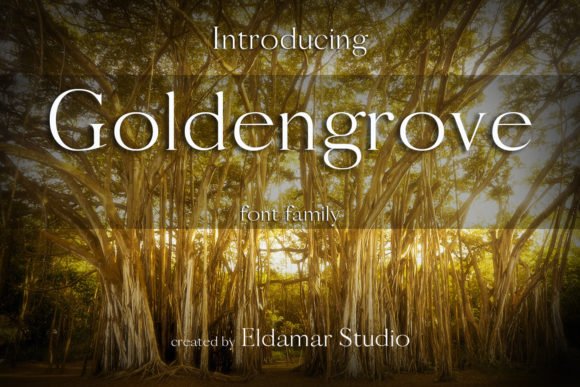
The Perfect Serif for Your Creative Masterpiece
Have you ever stared at a blank canvas, a blank page, or a blank screen, waiting for inspiration to strike? That’s where the magic happens, and the right font can make all the difference. For designers, finding the perfect font can be a game-changer. It’s like discovering a hidden gem that elevates your project from good to great.
Enter the Goldengrove Font, a sleek and sophisticated serif font that’s perfect for a wide range of projects. With its clean lines and delicate feel, it’s an excellent choice for designers who want to create a lasting impression. Whether you’re working on a book cover, a website, or a marketing campaign, the Goldengrove Font is sure to add a touch of elegance and sophistication.
Goldengrove Font Key Features
- Font Family: Goldengrove Font is a serif font family designed by Robert Slimbach and released by Adobe.
- Unique Characteristics: Features a classic, elegant design with subtle nuances and subtle texture, making it suitable for high-end publications and luxury branding.
- Font Styles: Includes 12 font styles, ranging from light to bold, with corresponding italic styles.
Designer Review: Goldengrove Font
Goldengrove Font is a unique and elegant typeface that has caught my attention. I appreciate its quirky and whimsical feel ✨, which sets it apart from more traditional fonts. The subtle flourishes and curved lines add a touch of sophistication and refinement to any text.
One of the standout features of Goldengrove is its excellent legibility ✨, even at smaller font sizes. This makes it perfect for body text, titles, and other applications where readability is crucial. The font also comes in a range of weights and styles, giving you plenty of flexibility to customize your design.
- Limited language support ⚠️, which may be a concern for multilingual designs.
- Some characters may not be as polished ⚠️ as others, which can be distracting in certain contexts.
Overall, I’m impressed with Goldengrove Font’s unique character and versatility. While it may have some limitations, it’s definitely a font worth considering for your next design project. With its elegant feel and excellent legibility, it’s sure to add a touch of sophistication to any text-based element.
Getting the Most Out of Goldengrove Font
Use Goldengrove to create elegant headings, titles, and quotes. Pair it with simple backgrounds to let the font take center stage. Experiment with different font sizes and styles to add depth and visual interest.
Wedding invitations, luxury branding, high-end product packaging, and elegant event invitations are all great use cases for the Goldengrove font. Its sophisticated and refined look makes it perfect for creating a sense of luxury and sophistication.